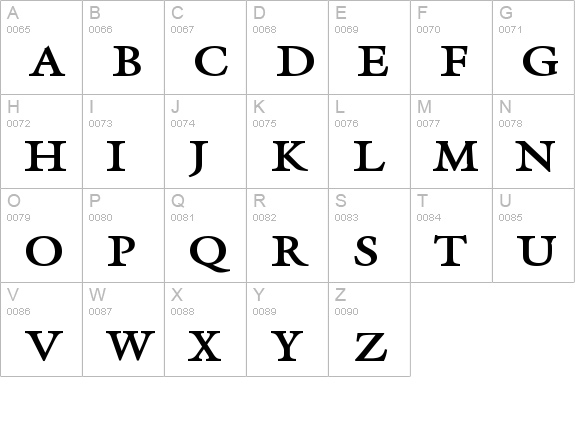
Galant Wide Bold Font Details
Galant Wide Bold is a strong, high-contrast, extended-width variant in the Galant typeface family \xE2\x80\x94 well suited to headlines, attention-grabbing titles, and strong calls-to-action.
Galant Wide Bold is a captivating and bold typeface that exudes confidence and modernity. With its wide and sturdy letterforms, this font commands attention and makes a powerful statement. Whether used for headlines, titles, or branding materials, Galant Wide Bold will leave a lasting impression. The strong and distinctive characters of Galant Wide Bold are meticulously crafted to convey strength and professionalism. Each letter is carefully balanced, ensuring optimal legibility and readability even at smaller sizes. The bold weight adds an extra level of impact, making it ideal for designs that require a strong and striking visual presence. What sets Galant Wide Bold apart is its versatility and adaptability. It seamlessly blends into a variety of design styles, from contemporary to traditional, making it suitable for a wide range of projects. Whether it's a modern website, a sleek print advertisement, or a captivating poster, Galant Wide Bold will effortlessly elevate the design to new heights. But what makes Galant Wide Bold even more appealing is the fact that it is available for free. That's right, this amazing font can be freely downloaded at FontsMarket.com. Now, you can enhance your designs without worrying about breaking the bank. With Galant Wide Bold, you have the power to create visually stunning and impactful designs without any cost constraints. So, why wait? Take advantage of this incredible opportunity and download Galant Wide Bold today. Unleash your creativity and elevate your designs to new levels with this bold and captivating typeface. Don't miss out on the chance to make a lasting impression with Galant Wide Bold – the font that combines power, versatility, and affordability. Get it now, exclusively at FontsMarket.com.